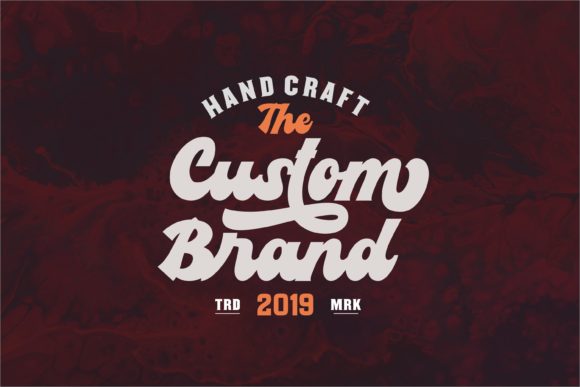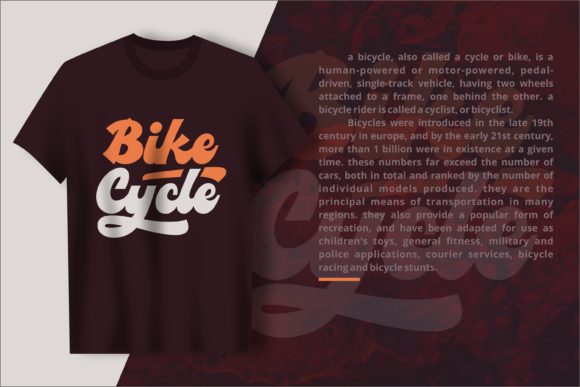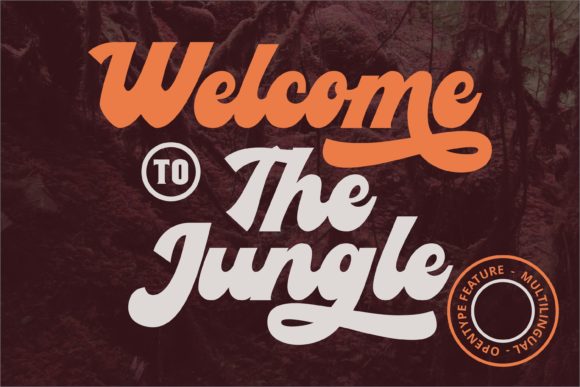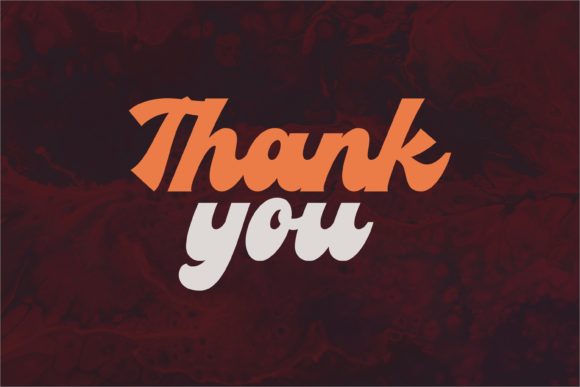
Introducing Blacks Font: The Bold and Chubby Handwritten Font with a Vintage Feel
Are you tired of using the same old fonts in your design projects? Do you want to add a unique twist to your creations? Look no further than Blacks Font, a bold and chubby handwritten font with a vintage feel. In this article, we’ll take a closer look at Blacks Font, its features, and how it can elevate your design projects.
What is Blacks Font?
Blacks Font is a handwritten font designed with a vintage feel in mind. Its bold and chubby letters are perfect for adding a touch of personality to any design project. Whether you’re working on a logo, brochure, or social media graphics, Blacks Font is sure to make your designs stand out.
Features of Blacks Font
So, what makes Blacks Font so special? Here are some of its key features:
- Bold and Chubby Letters: Blacks Font features bold and chubby letters that are sure to grab attention.
- Vintage Feel: The font has a vintage feel that adds a touch of nostalgia to any design project.
- Handwritten Style: Blacks Font is a handwritten font, which gives it a personal and unique touch.
- Easy to Read: Despite its bold and chubby letters, Blacks Font is easy to read, making it perfect for body text and headings.
How to Use Blacks Font in Your Design Projects
Blacks Font is a versatile font that can be used in a variety of design projects. Here are some ideas to get you started:
- Logos and Branding: Use Blacks Font to create a bold and eye-catching logo that stands out.
- Brochures and Flyers: Add a touch of personality to your brochures and flyers with Blacks Font.
- Social Media Graphics: Use Blacks Font to create engaging social media graphics that grab attention.
- Invitations and Cards: Add a vintage touch to your invitations and cards with Blacks Font.
Why Designers and Crafters Love Blacks Font
Blacks Font has quickly become a favorite among designers and crafters, and for good reason. Here are some reasons why:
- Unique Style: Blacks Font offers a unique style that sets it apart from other fonts.
- Easily Customizable: The font is easily customizable, making it perfect for designers who want to experiment with different styles.
- Time-Saving: With Blacks Font, designers can save time and effort, as they don’t have to spend hours creating their own font from scratch.
Tips for Getting the Most Out of Blacks Font
Here are some tips for getting the most out of Blacks Font:
- Experiment with Different Sizes: Experiment with different sizes to see how Blacks Font looks in different contexts.
- Pair with Other Fonts: Pair Blacks Font with other fonts to create a unique and interesting contrast.
- Use in Combination with Images: Use Blacks Font in combination with images to add an extra layer of depth to your designs.
| Font Name | Blacks Font |
| Author | ovoz.graphics |
In conclusion, Blacks Font is a bold and chubby handwritten font with a vintage feel that’s perfect for adding a unique twist to any design project. With its easy-to-read letters, versatile style, and customizable features, Blacks Font is a must-have for designers and crafters. Whether you’re working on a logo, brochure, or social media graphics, Blacks Font is sure to make your designs stand out.